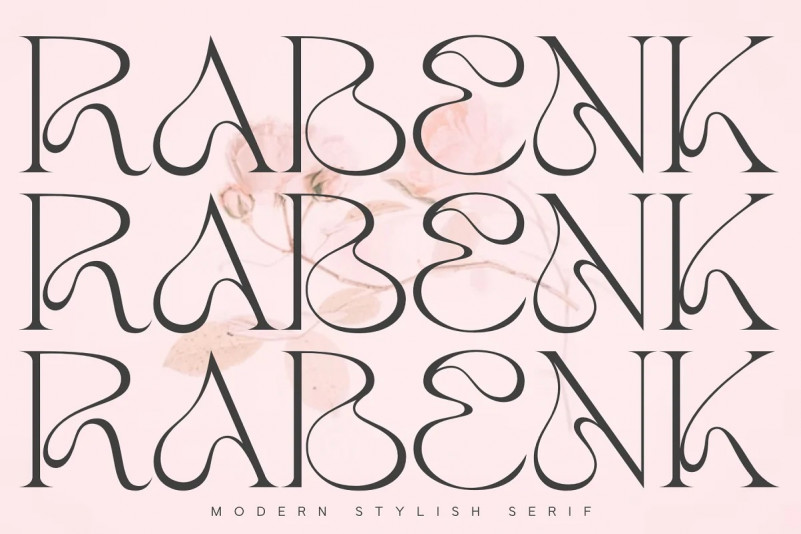
Rabenk Font
Rabenk Serif Font is a fun quirky look serif. With a modern look, it looks perfect when paired with conventional serif/sans serifs. It can be used for mastheads, posters, business identities and just about anything.